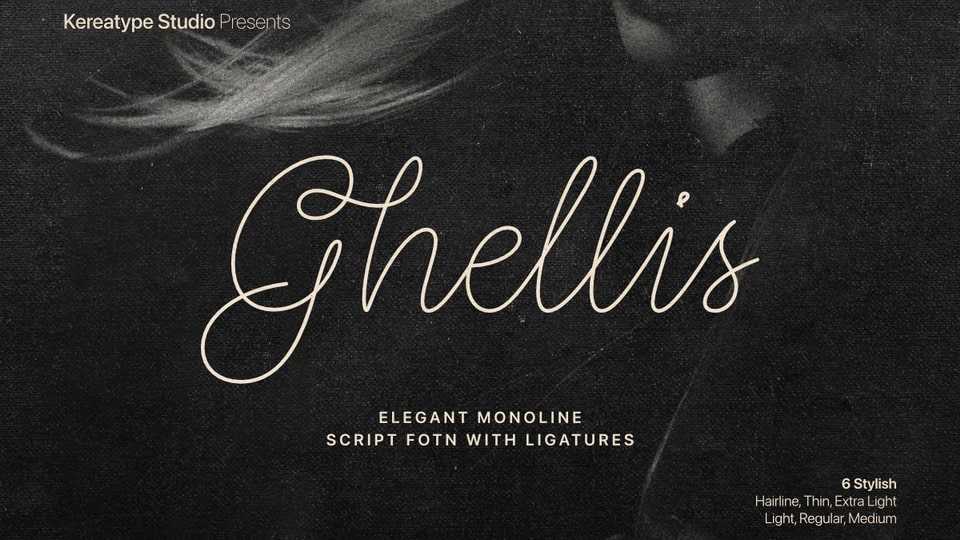
Download Ghellis font, a beautifully elegant monoline script typeface crafted with delicate, continuous lines that flow effortlessly like natural handwriting.
Designer: Kereatype Studio